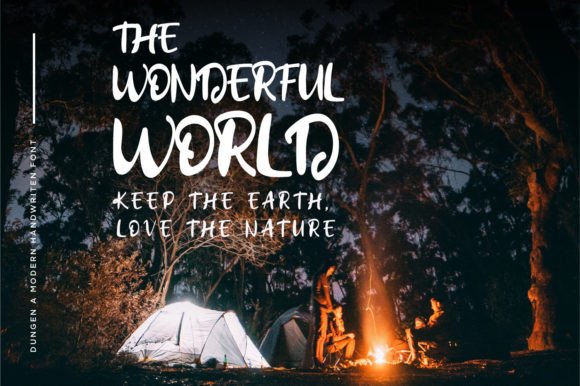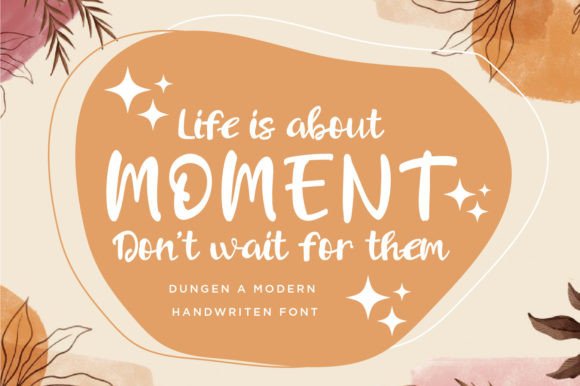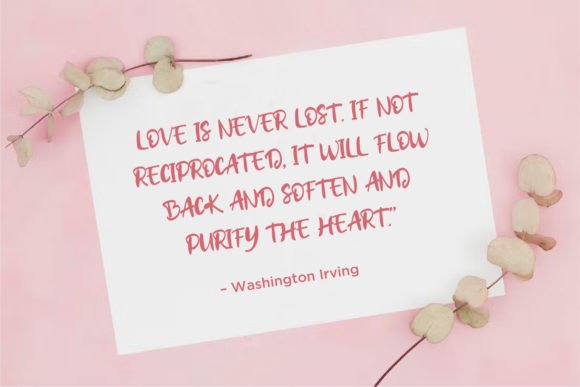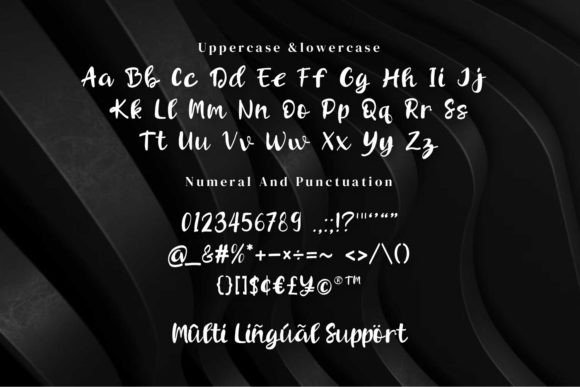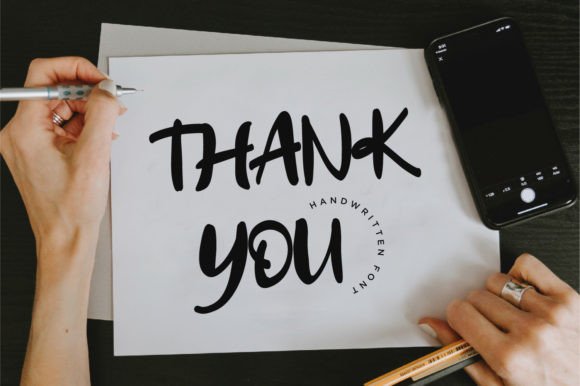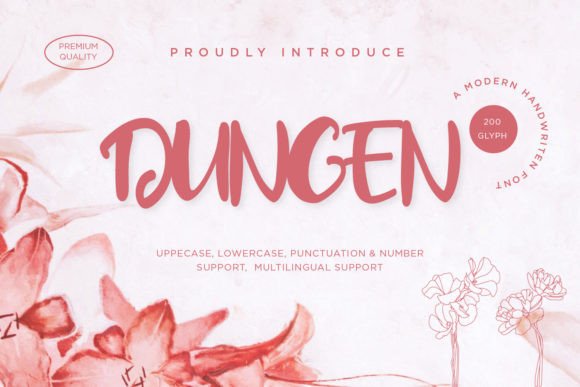
Dungen Font: Elevate Your Designs with Elegance and Sophistication
In the world of typography, few fonts manage to capture the essence of sophistication and beauty as effortlessly as the Dungen Font. This attractive script font is the epitome of refinement, boasting fluid and graceful letterforms that are meticulously crafted to add a touch of elegance to any design project. Whether you’re working on branding, invitations, social media graphics, or any other creative endeavor, Dungen Font is sure to make a lasting impression.
The Unique Character of Dungen Font
What sets Dungen Font apart from other script fonts is its unique character and style. Each letterform is carefully designed to exude a sense of refined authenticity, reminiscent of timeless scripts that have been used in high-end branding and design for centuries. The font’s fluid strokes and graceful curves create a sense of movement and fluidity, making it perfect for designs that require a touch of sophistication and poise.
Dungen Font is an incredibly versatile font that can be used in a wide range of design projects. Here are just a few examples of how you can use this beautiful font to elevate your designs:
- Branding: Use Dungen Font to create a luxurious and sophisticated brand identity that sets your business apart from the competition.
- Invitations: Add a touch of elegance to your wedding invitations, party invites, or any other special occasion with Dungen Font.
- Social Media: Use Dungen Font to create eye-catching social media graphics that showcase your brand’s personality and style.
- Packaging: Add a touch of sophistication to your product packaging with Dungen Font, perfect for luxury brands or high-end products.
Why Choose Dungen Font?
With so many fonts available, why choose Dungen Font for your design projects? Here are just a few reasons why designers and crafters love this beautiful script font:
- Elegance: Dungen Font exudes elegance and sophistication, making it perfect for designs that require a touch of refinement.
- Versatility: This font can be used in a wide range of design projects, from branding and invitations to social media and packaging.
- Unique Character: Dungen Font has a unique character and style that sets it apart from other script fonts.
- Easy to Read: Despite its elegant and refined appearance, Dungen Font is easy to read, making it perfect for body text and headlines.
Tips for Using Dungen Font
To get the most out of Dungen Font, here are a few tips to keep in mind:
- Use it sparingly: While Dungen Font is beautiful, it can be overwhelming if used excessively. Use it sparingly to add a touch of elegance to your designs.
- Pair it with a sans-serif font: Pairing Dungen Font with a sans-serif font can create a beautiful contrast that adds visual interest to your designs.
- Experiment with colors: Dungen Font looks beautiful in a variety of colors, from rich blacks and dark grays to metallic golds and silvers.
In conclusion, Dungen Font is a beautiful script font that is sure to elevate your designs with its elegance and sophistication. Its unique character and style create a sense of refined authenticity that captures the essence of timeless scripts. Whether you’re a designer, crafter, or DIY enthusiast, Dungen Font is a must-have font that will add a touch of luxury and refinement to any design project.